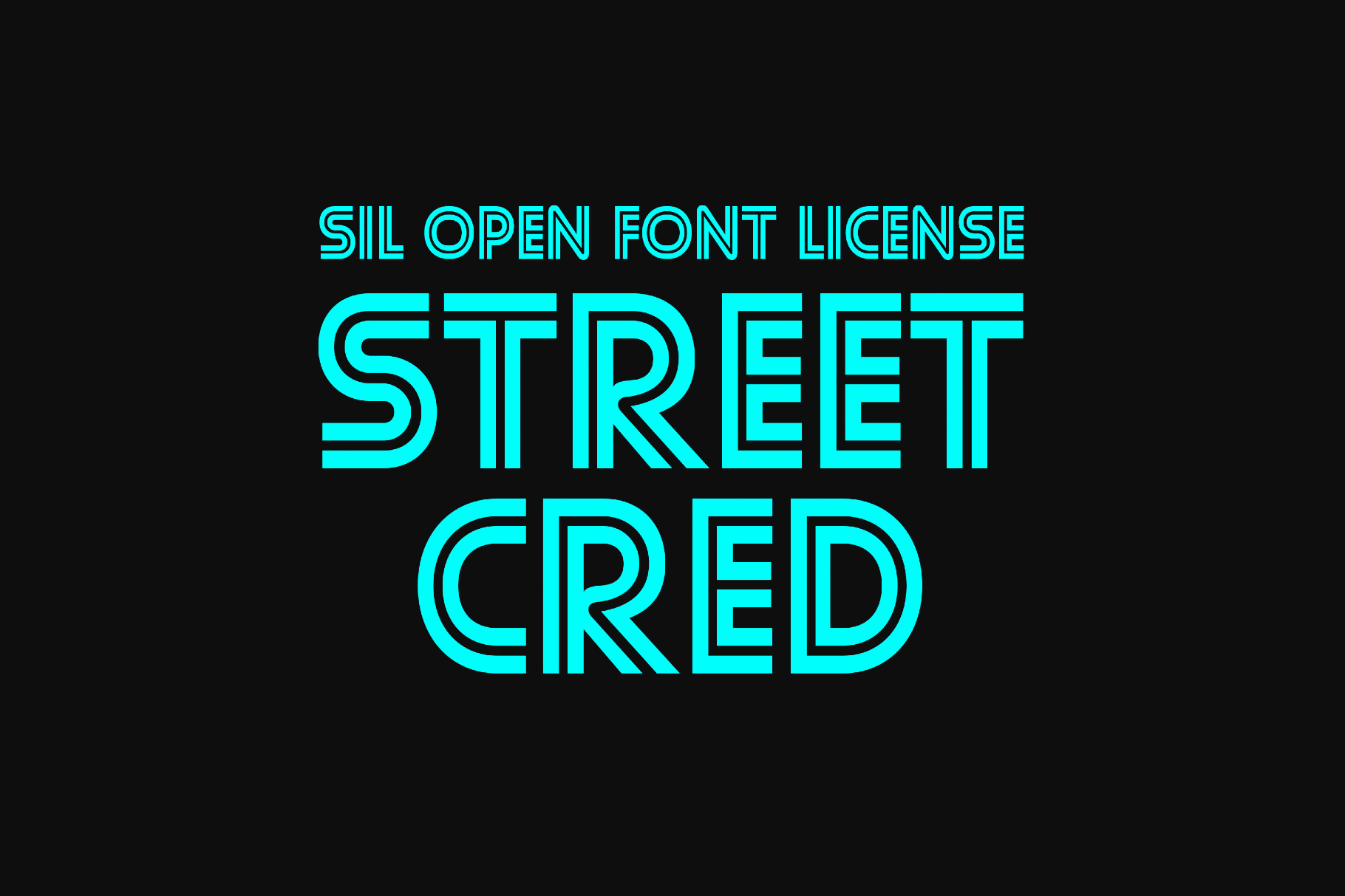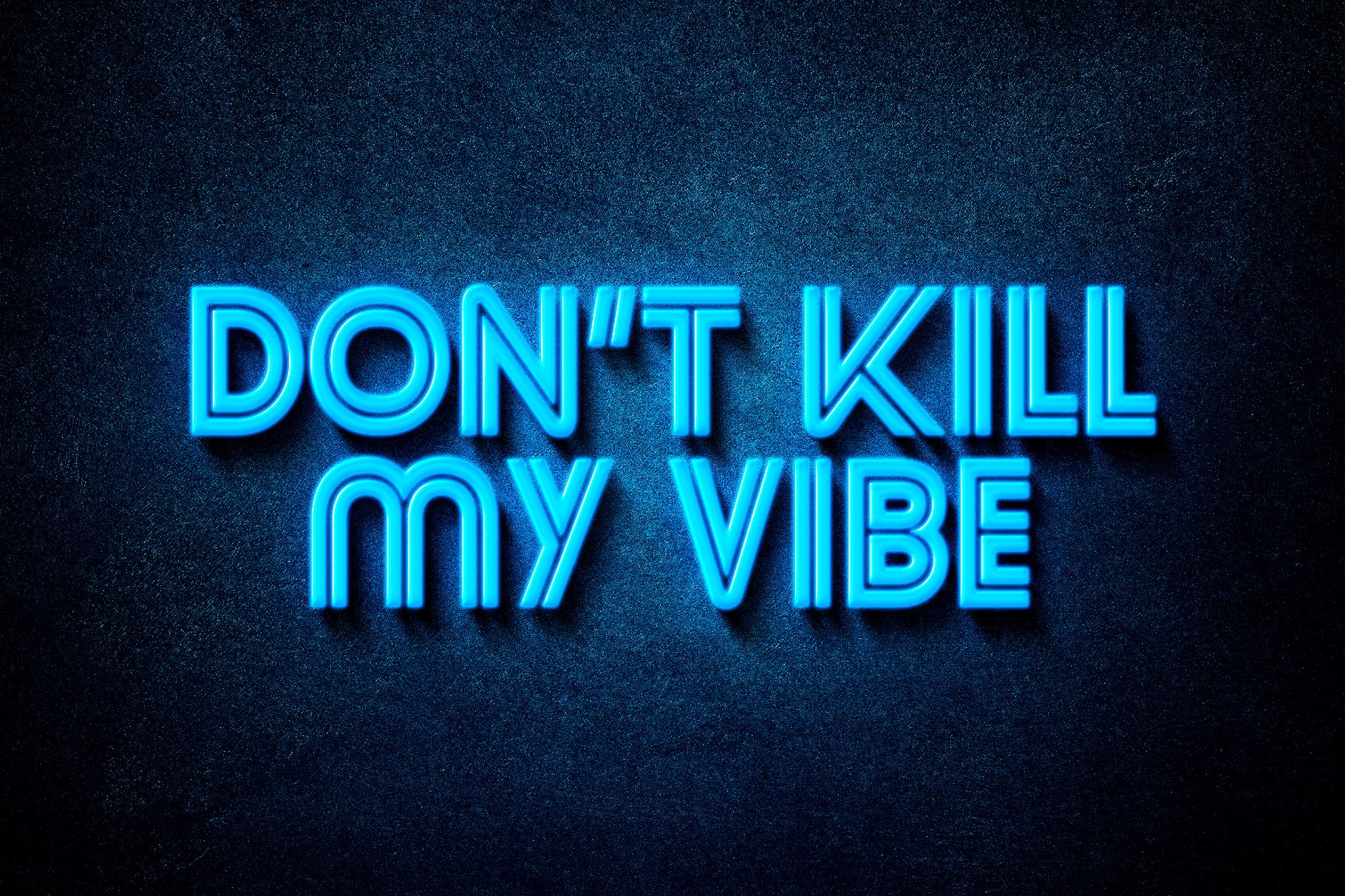
Street Cred Font
Street Cred
A bold, marker-like font, Street Cred, with thick strokes and a hand-drawn edge, is rooted in hip-hop flyer typography and graffiti culture. The mixed-case shapes that recall quick lettering on posters or flyers are ideal for streetwear logos, mixtape covers, sticker graphics, punchy headlines, social promos, and bold packaging callouts.
- International characters with multilingual support across extended Latin languages.
- Basic mathematical symbols.